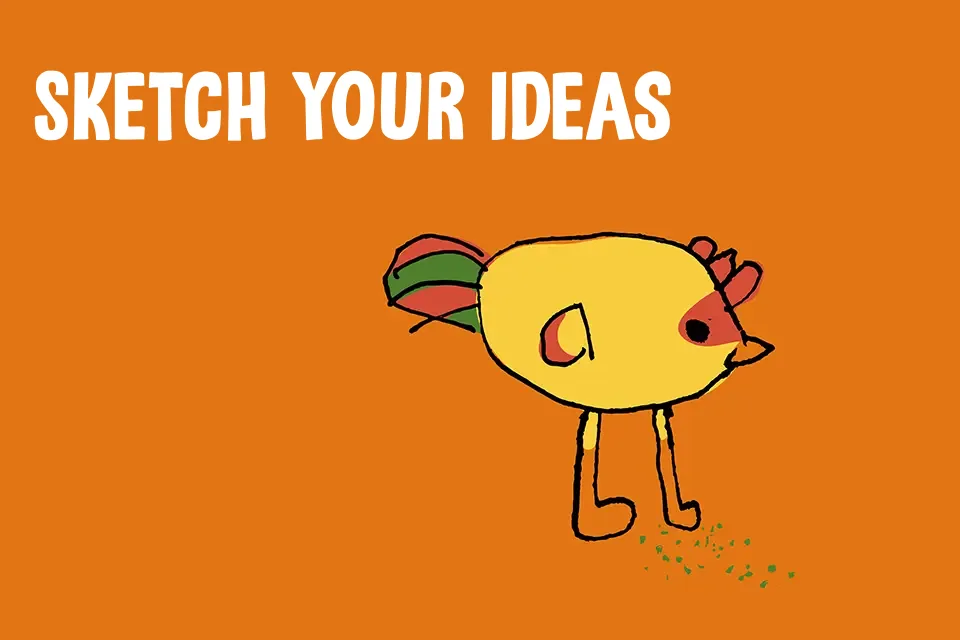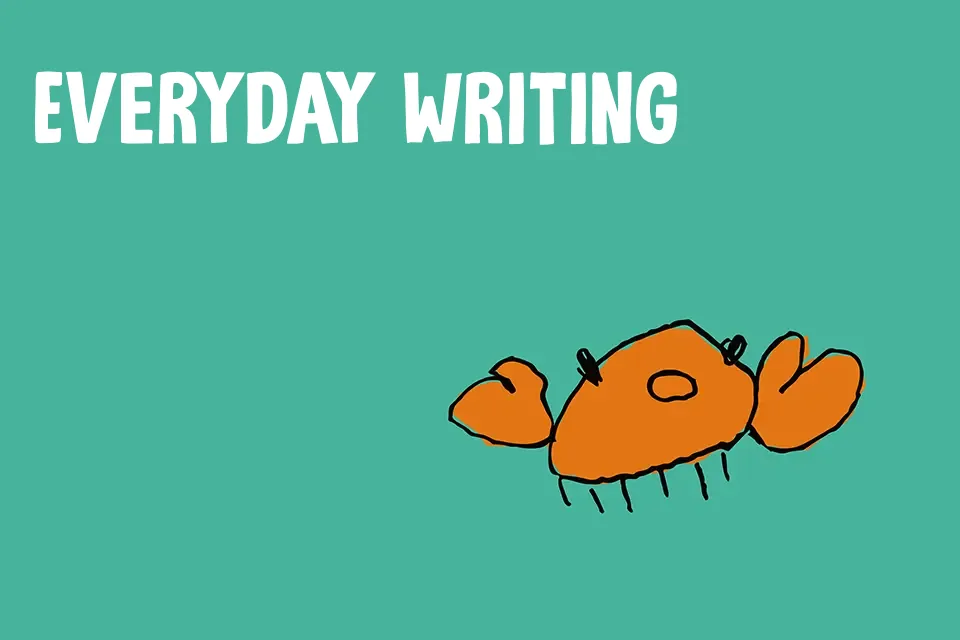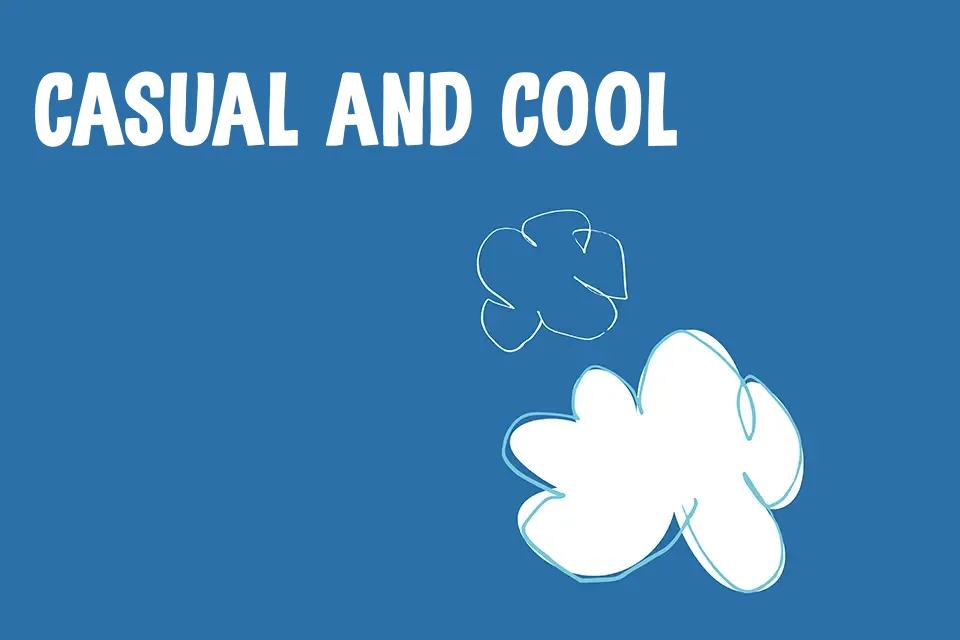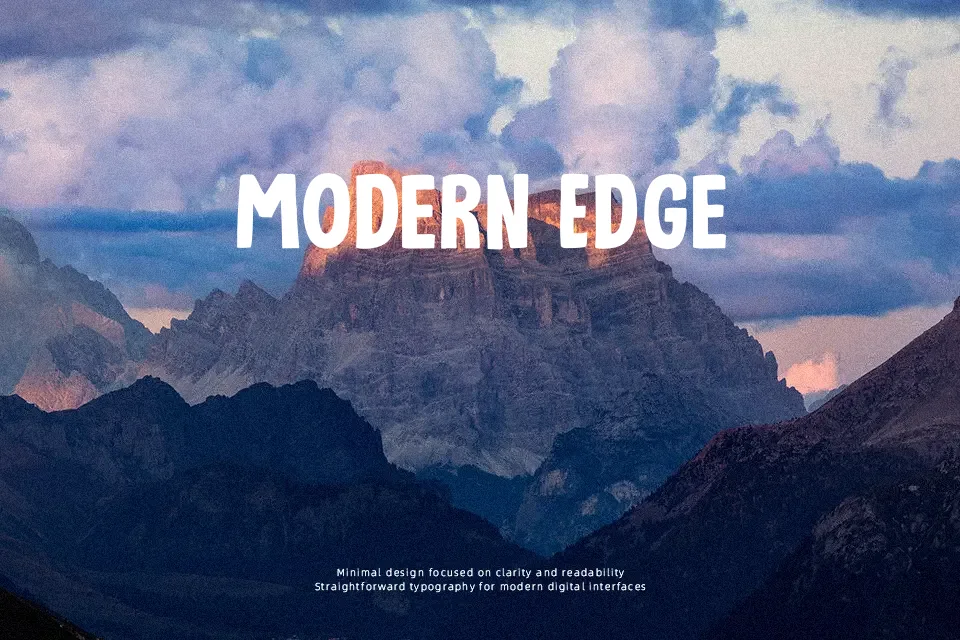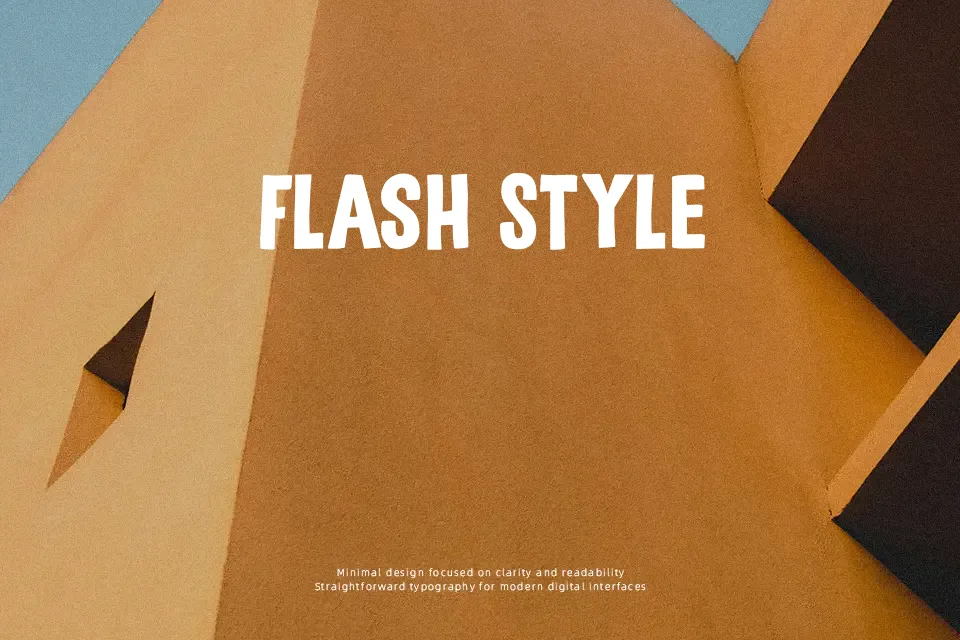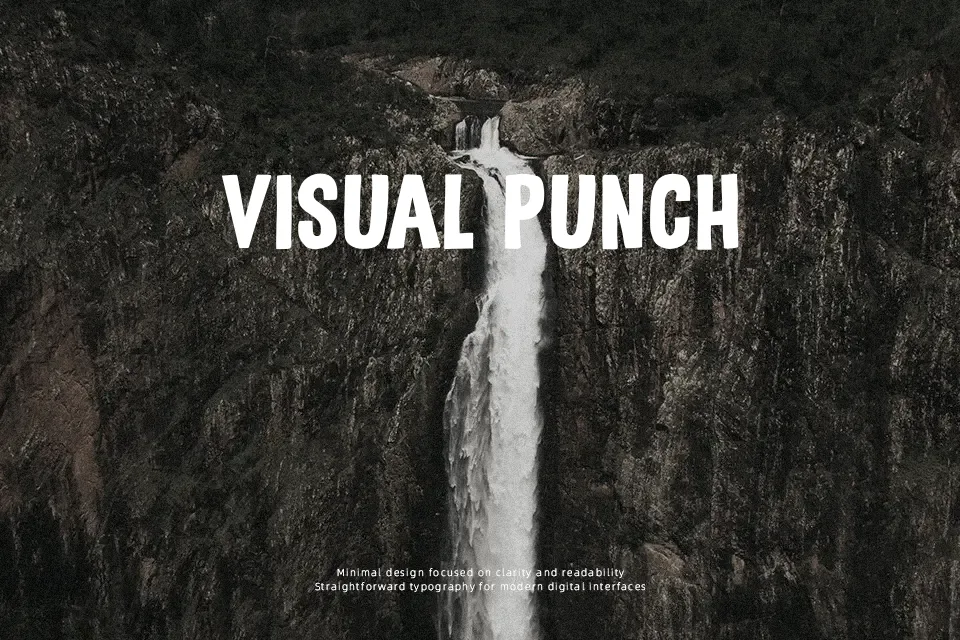
Utroligt Font
Designed by Hanoded
Utroligt Font delivers a casual, hand-drawn aesthetic defined by spontaneous pen strokes, variable baseline alignment, and slightly uneven terminal shapes. The open letterforms maintain strong legibility across prominent headline scales, lending genuine warmth to book covers, event flyers, and food packaging. Loose internal character spacing reinforces an approachable handmade rhythm, though dense blocks of text reveal significant inconsistencies in line balance. Small body text and complex tables remain impractical due to reduced clarity at reduced proportions. The typeface works best when displayed prominently across expressive editorial headings.
Best For: children book titles, playful food packaging, cartoon posters, casual event banners
Not Ideal For: dense editorial paragraphs, technical documentation, corporate financial reports, mobile interface labels
Perfect for branding, headline, and kids, with a creative and comic style.